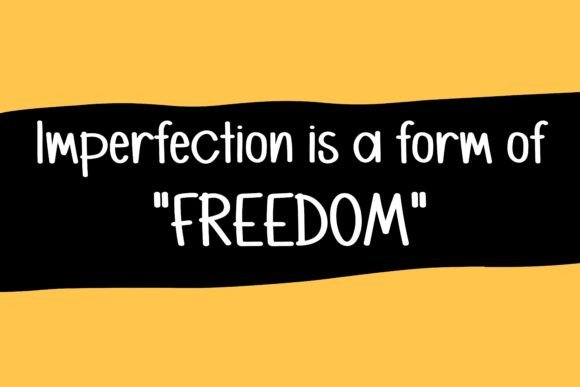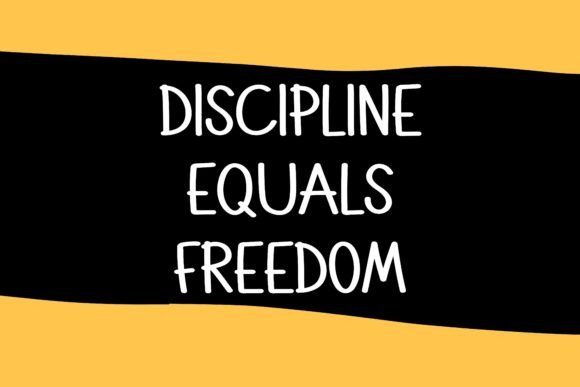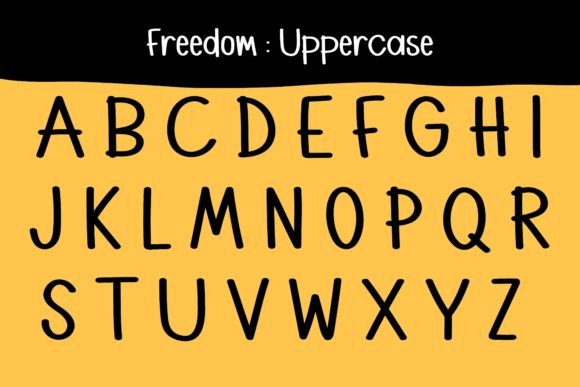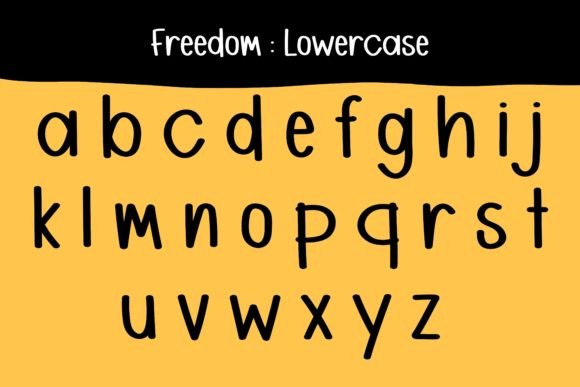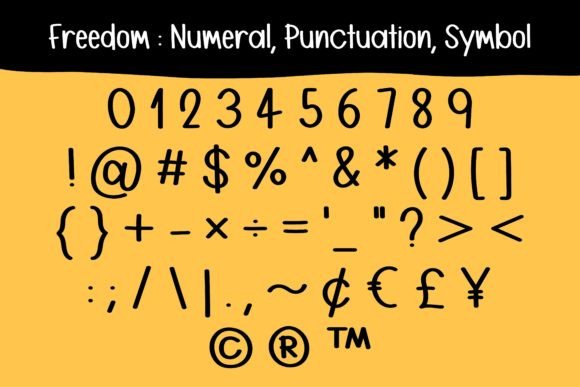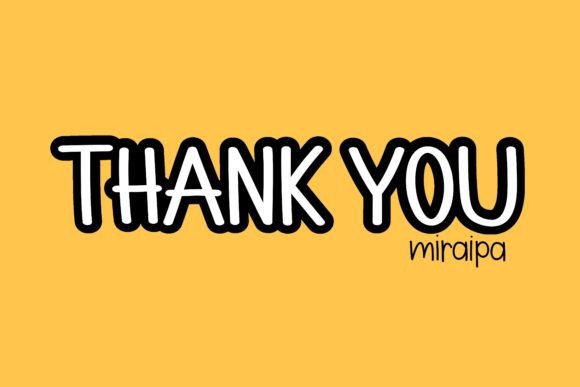
Introducing Freedom Font: The Perfect Handwritten Companion for Your Creative Projects
Are you on the hunt for a font that adds a personal touch to your designs? Look no further than Freedom Font, a modern and lovely handwritten font designed to bring a friendly vibe to your projects. Whether you’re working on diaries, planners, journals, back-to-school projects, party decorations, invitations, posters, blogs, clothing, child-related designs, greeting cards, social media posts, or any other DIY endeavor, Freedom Font is the perfect companion to bring your creations to life.
What Makes Freedom Font Stand Out?
Freedom Font is not just another font; it’s a tool that can transform your designs by adding a personal and friendly touch. Its modern and lovely handwritten style is versatile enough to be used across various projects, making it an excellent addition to any designer’s or crafter’s font library.
One of the key benefits of Freedom Font is its versatility. It can be used in:
• Diaries and Journals: Add a personal touch to your daily logs or journal entries.
• Planners: Make your planners more engaging and fun to use.
• Back-to-School Projects: Give your school projects a creative edge.
• Party Decorations and Invitations: Create eye-catching invitations and decorations for any party.
• Posters and Blogs: Enhance your posters and blog posts with a friendly and approachable font.
• Clothing and Child-Related Designs: Perfect for designing t-shirts, kids’ apparel, and nursery decor.
• Greeting Cards: Make your greeting cards more heartfelt and personal.
• Social Media Posts: Stand out on social media with unique and engaging posts.
Why Choose Freedom Font?
Choosing Freedom Font for your projects comes with several advantages:
• Easy to Read: Despite its handwritten nature, Freedom Font is clear and easy to read, making it perfect for both digital and print projects.
• Customizable: As a digital font, you can scale it up or down without losing quality, allowing for maximum flexibility in your designs.
• Unique Style: It offers a unique style that can help your projects stand out from the crowd.
• User-Friendly: Adding Freedom Font to your projects is straightforward, making it accessible even if you’re not a professional designer.
Tips for Maximizing the Potential of Freedom Font
To get the most out of Freedom Font, consider the following tips:
• Mix and Match: Don’t be afraid to combine Freedom Font with other fonts for a unique look.
• Play with Sizes: Experiment with different font sizes to add emphasis and create visual hierarchy in your designs.
• Color It Right: Choose colors that complement the friendly and modern vibe of Freedom Font.